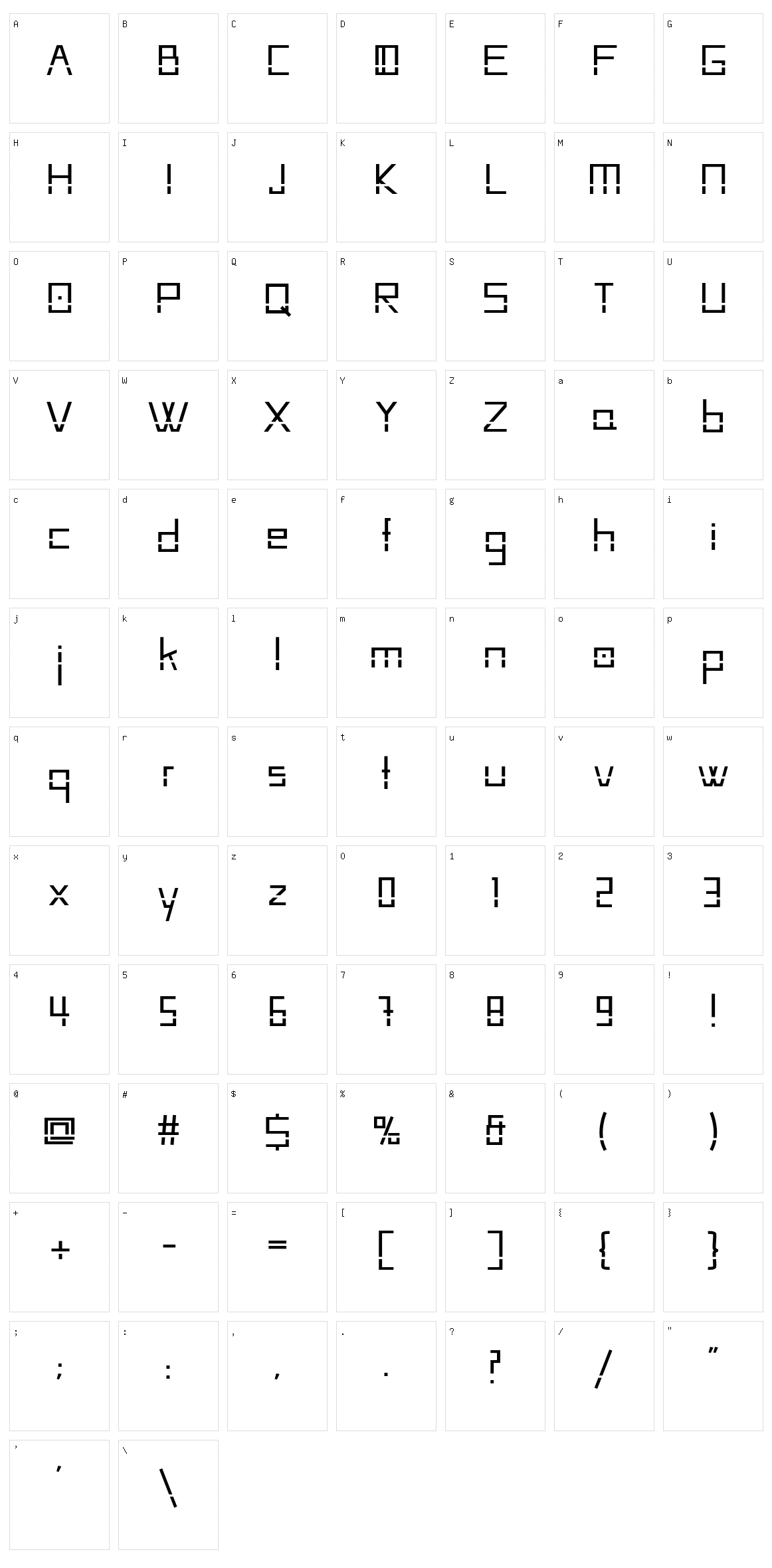
The free font Hueco is carefully designed by Laura Bizzey, showcasing a thoughtful balance of creativity and usability and falls under the Square font style. When you download the ZIP file, it contains only 10.67 KB of font files, making it lightweight and quick to download. Please review the license details below to understand permitted usage and distribution rights. If license information is not available, we recommend using this font for personal projects only or contacting the author directly for commercial usage permissions.